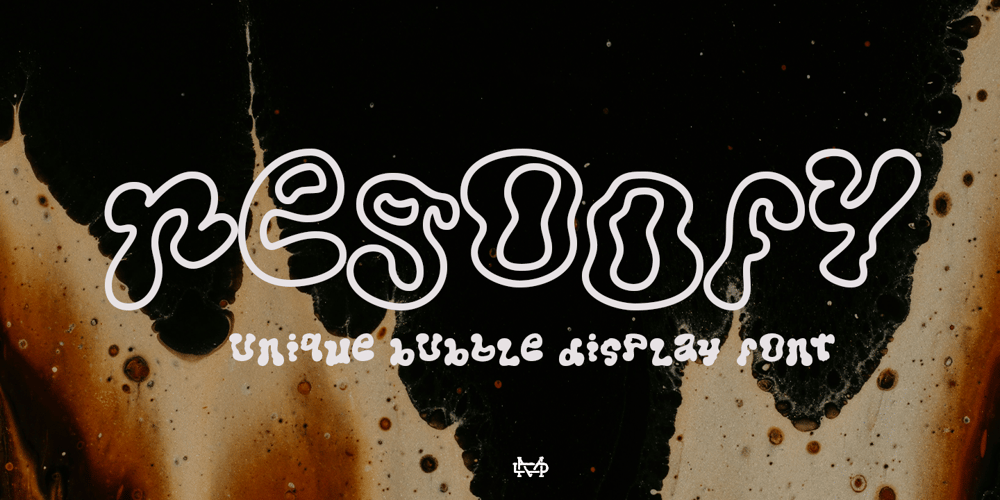
Regoofy
Regoofy font
Regoofy Font Family was designed by madededuk and published by madeDeduk. Regoofy contains 2 styles and family package options. Regoofy is a melt and wave display font inspired from urban style. Standing out and unique to explore and combine creating rhythm for comfortable reading. This font perfect for creating something a bit different, such logotype, stickers, packaging design, headlines, brand identity, t-shirt, posters, magazines, books, Instagram, websites, and many more.Feature Uppercase & Lowercase Number & Symbol International Glyphs Multilingual support Alternative Feel free to drop us a message any time and follow my shop for upcoming updates.Hope you enjoy it.